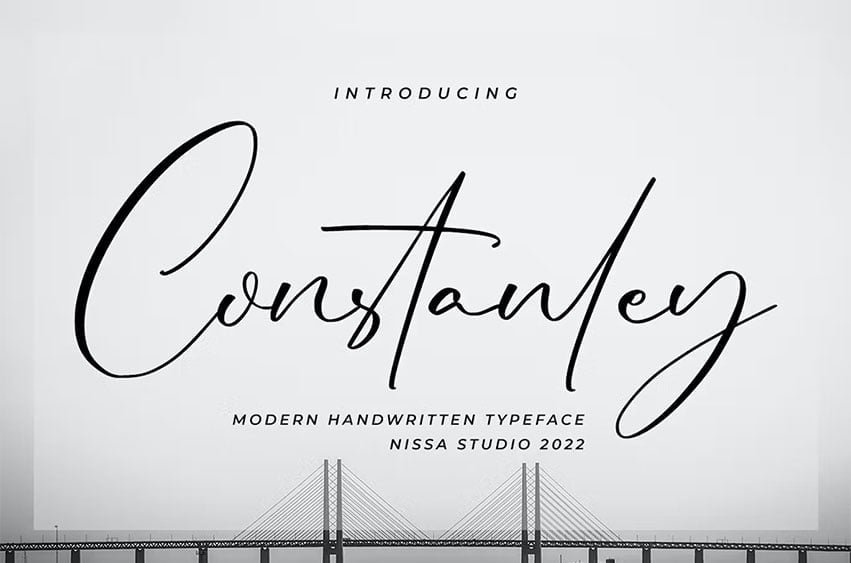
Constanley Font is a beautiful and delicate handwritten font with a unique feel and a stunning impact. It will add a luxury spark to any design project that you wish to create!
- Modern Calligraphy Font
- Beautiful Swash (Ending tail)
- Beautiful Titling (Beginning tail)
- Special Ligatures